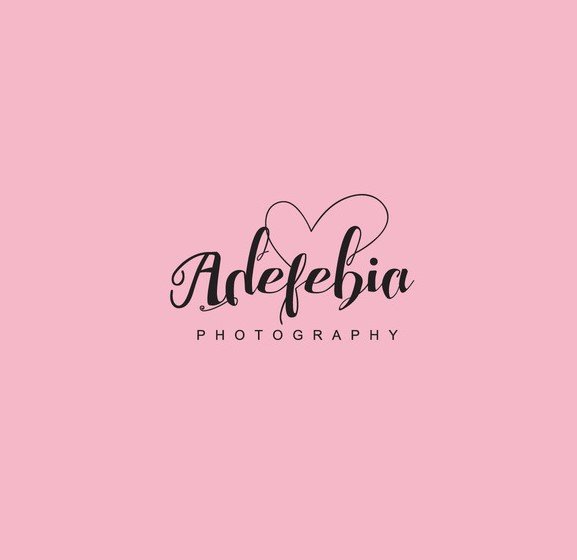
Chocolate Heart Script Font is a modern calligraphy typeface to be had in otf OpenType format. Suitable for wedding invitation, event, t-shirt, brand, badges, sticky label, and many others. Demo model download is to be had without cost.
This is a contemporary and expert font family you may use with numerous creative and commercial enterprise designs. It consists of a complete of 20 fonts providing 10 distinct weights and 10 italic variations.
Have a look at the pix we introduced right here of the letter maps for this loose font circle of relatives. As you can get a perception about how your designs will seem like. Plenty of the designers are utilizing this sans serif typeface in their suitable tasks.
all of these styles have 451 numbers of glyphs together with uppercase, lowercase, numerals, and looks as if this font and superstar punctuation marks. Furthermore, possessing the Opentype file layout, it has helped a hundred and fifty international languages.